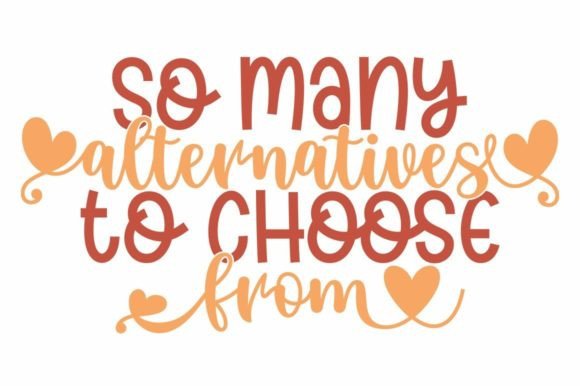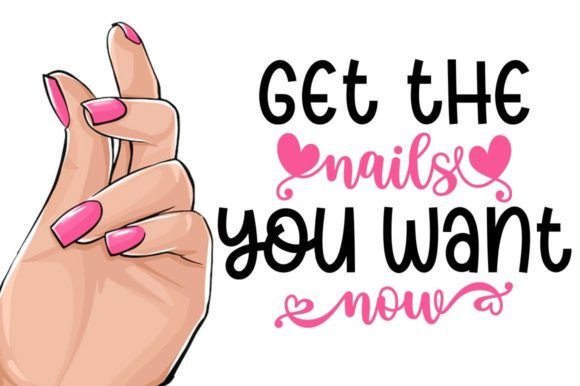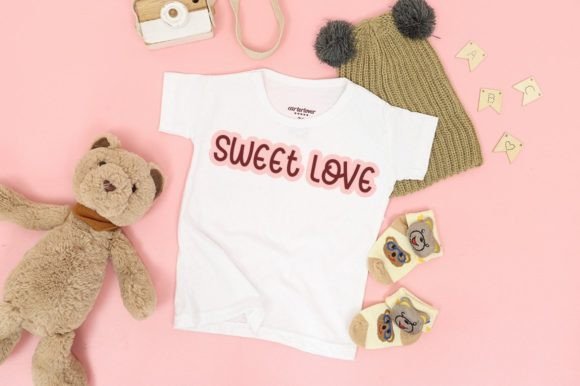
Hope Love Brown is an adorable and fun font duo.
It has a lovely touch with an over-sweet taste It is perfect for any project design, such as wedding invitations, Valentine’s day, logos, branding, social media, stickers, and so on.
Hope Love Brown Duo Font offers exceptional quality and versatility, making it a valuable addition to your design toolkit. Whether you’re creating for personal projects or commercial use, Hope Love Brown Duo Font delivers professional results.